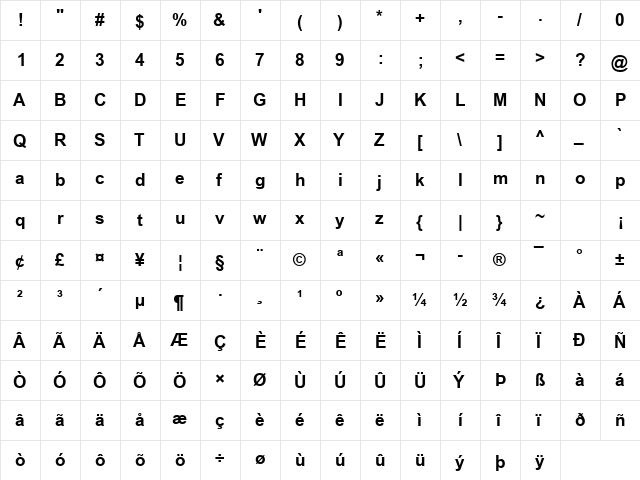
Utsaah Bold
Design Context for Utsaah Typeface
Utsaah offers clean, dependable letterforms without strong stylistic allegiance, making it a practical choice for designers who need flexibility. Its bold stroke weight gives it real presence on the page.